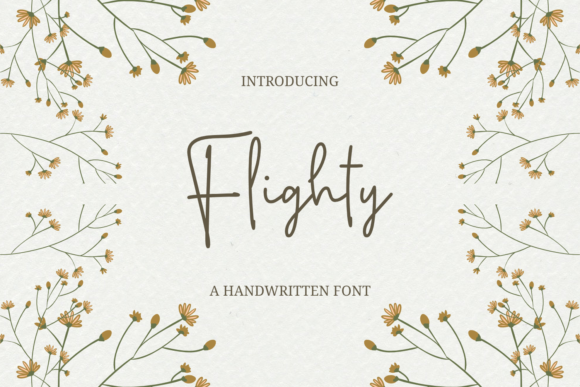
Unleash the beauty of handwritten charm with Flighty Font, a graceful monoline script font that dances across your designs with effortless elegance. Its fluid strokes, reminiscent of a skilled calligrapher's hand, bring a touch of authenticity and creativity to your projects.
As a member of the script font family, Flighty Font exudes a natural and relaxed vibe, making it the perfect choice for designs that demand a personal touch. Whether you're creating logos, invitations, social media posts, or website headers, Flighty Font adds a unique charm that captivates and engages your audience.
Crafted by the talented hands at nhfonts, Flighty Font is a meticulously designed masterpiece that embodies the essence of simplicity and creativity. Its monoline structure lends it a clean and minimalist aesthetic, while its handwritten style infuses a sense of warmth and personality into your designs.
With Flighty Font, you'll discover endless possibilities for expressing your creativity. Its versatility extends across a wide range of design applications, from crafting eye-catching headlines and captivating posters to designing enchanting invitations and personalized branding materials.
Experience the transformative power of Flighty Font and watch your designs blossom with an enchanting handwritten touch. Embrace the beauty of simplicity and creativity, and unleash your imagination to create stunning visuals that leave a lasting impression.
Unlock the full potential of Flighty Font today and elevate your designs to new heights of elegance and charm. Let your creativity soar and experience the joy of creating designs that resonate with your audience and leave them utterly captivated.